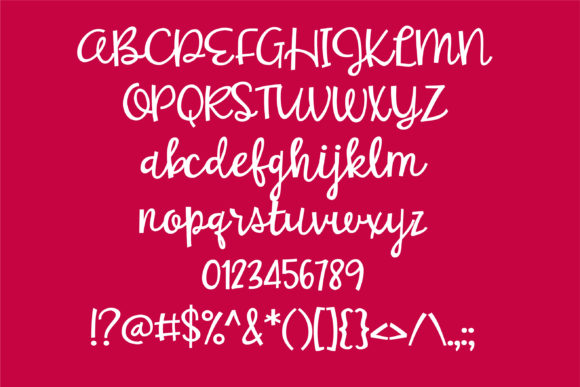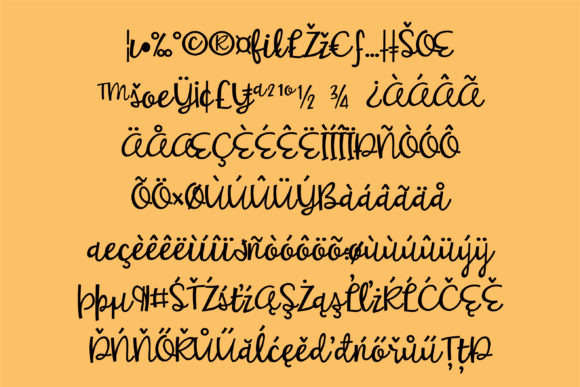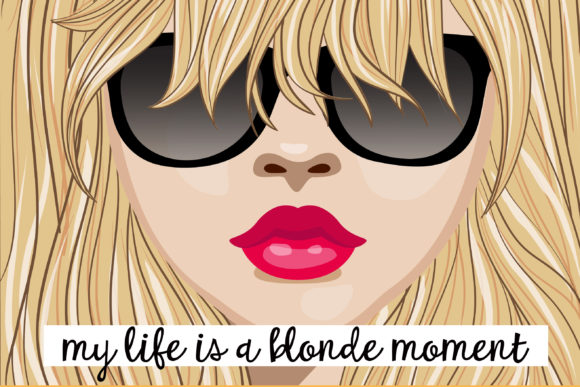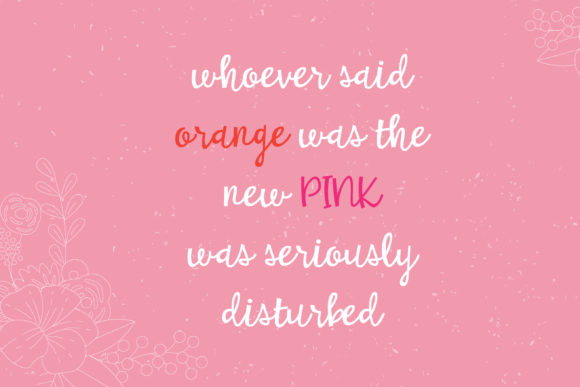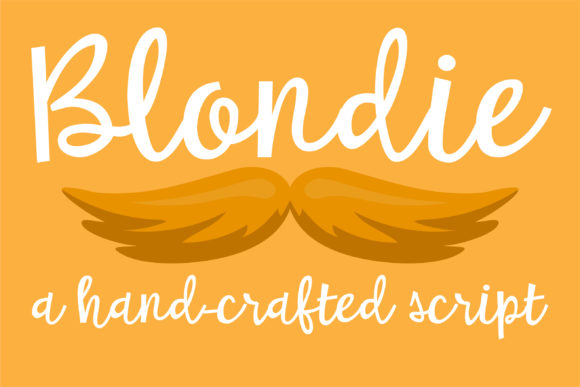
Introducing Blondie Font: The Perfect Handwritten Script for Crafting and Journaling
Are you a designer, crafter, or journaler looking for a unique and versatile font to elevate your creative projects? Look no further than Blondie Font, a casual, hand-crafted script that is sure to capture your imagination. With its medium weight and effortless charm, Blondie Font is the perfect choice for anyone seeking a font that exudes warmth, personality, and style.
What is Blondie Font?
Blondie Font is a beautifully designed, handwritten script font that boasts a medium weight, making it ideal for a wide range of creative applications. This gorgeous font is the brainchild of talented typographers who sought to create a unique and versatile typeface that would inspire crafters, journalers, and designers to push the boundaries of their creativity.
Key Features of Blondie Font
So, what makes Blondie Font so special? Here are some of its key features:
• Hand-crafted with love: Blondie Font is a genuine handwritten script, crafted with precision and care to ensure that every letter, curve, and flourish is unique and authentic.
• Medium weight: With its medium weight, Blondie Font strikes the perfect balance between elegance and playfulness, making it suitable for a wide range of projects.
• Effortless charm: Blondie Font exudes a carefree, laid-back vibe that’s perfect for crafters, journalers, and designers who want to add a touch of personality to their work.
• Versatile: Whether you’re creating a handmade card, a journal page, or a design project, Blondie Font is the perfect choice.
Uses for Blondie Font
Blondie Font is an incredibly versatile typeface that can be used for a wide range of creative projects, including:
• Crafting: Add a personal touch to your handmade cards, gift tags, and scrapbooking projects with Blondie Font.
• Journaling: Elevate your journal pages with Blondie Font, perfect for writing, doodling, or creating inspiring quotes.
• Designing: Use Blondie Font in your design projects, such as branding, packaging, or social media graphics, to add a touch of whimsy and personality.
Why Choose Blondie Font?
With so many fonts available, why choose Blondie Font? Here are just a few reasons:
• Unique and authentic: Blondie Font is a genuine, hand-crafted script that will set your projects apart from the rest.
• Easy to read: Despite its playful nature, Blondie Font is surprisingly easy to read, making it perfect for body text or headings.
• High-quality: Blondie Font is a high-quality typeface, carefully crafted to ensure that it looks great in any context.